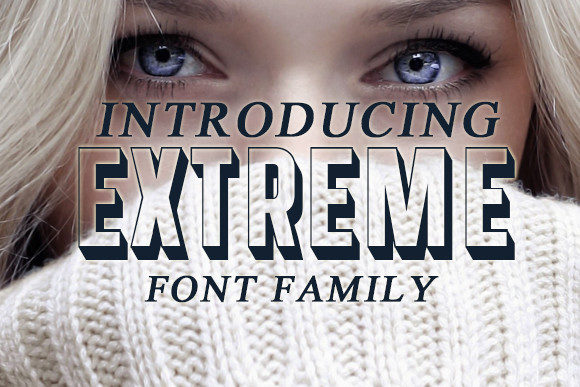
Welcome to the world of Extreme Font, a captivating display font that's like a breath of fresh air in the world of typography. Picture this: your family name, etched in bold, outlined strokes, proudly displayed on a custom sign that catches everyone's eye. That's the magic of Extreme Font, a creation by the talented vladimirnikolic.
This font is not just a collection of letters; it's an expression of your family's heritage, a symbol of unity and love. Whether it's for a family reunion, a special anniversary, or simply a way to showcase your family's bond, Extreme Font is the perfect choice.
Imagine the possibilities: a wooden plaque with your family name, hanging prominently in your living room, a personalized doormat that welcomes guests with a touch of warmth and charm, or even a custom-made t-shirt that lets the world know how proud you are of your family.
With Extreme Font, you're not just buying a font; you're investing in a legacy. This font has the power to transform ordinary objects into cherished family heirlooms, pieces that tell your story and create lasting memories.
So why settle for ordinary when you can have extraordinary? Embrace the beauty of Extreme Font and embark on a journey of personalization and creativity. Let your family's name shine, let your love radiate, and let Extreme Font be the storyteller of your familial bond.